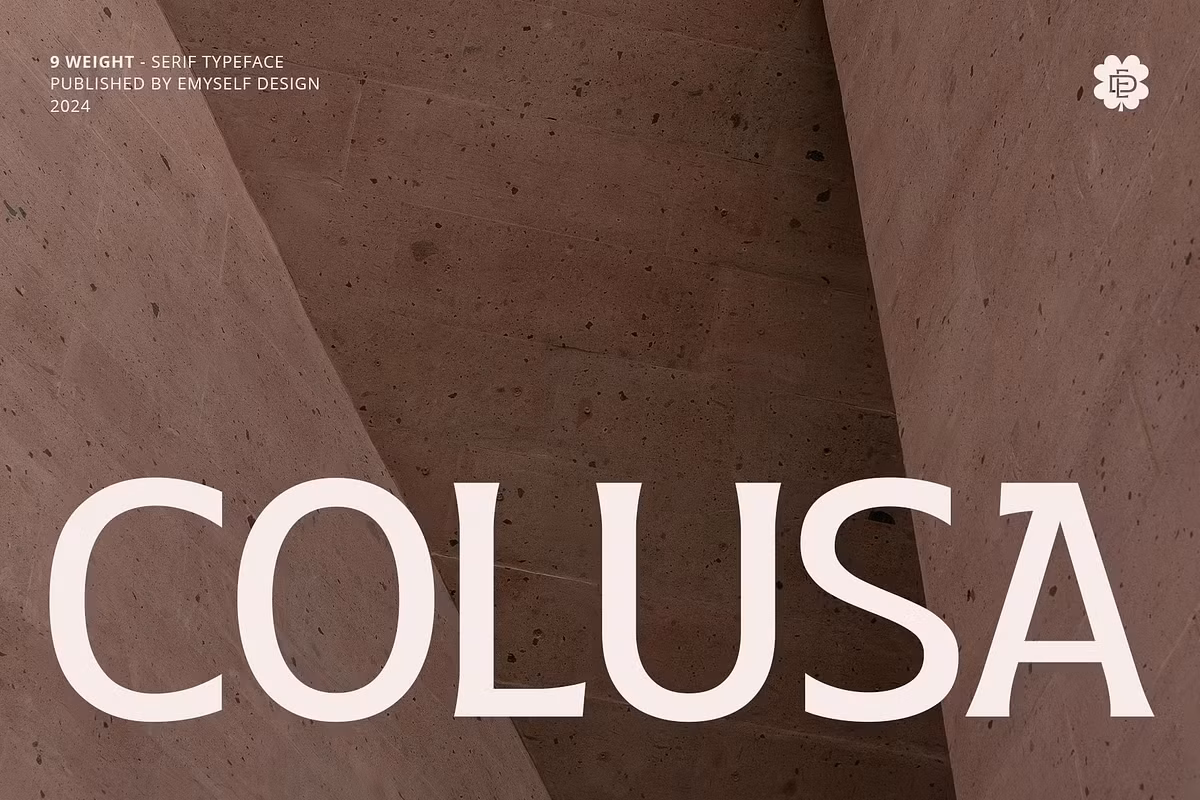
ED Colusa - Serif Font Free Download
ED Colusa – Serif Font Free Download
ED Colusa – Serif Font Free Download is a timeless, elegant serif typeface designed with modern sophistication in mind. Featuring high-contrast strokes, sharp serifs, and balanced proportions, this font is perfect for editorial designs, branding, logos, invitations, and professional digital or print projects.
With its classic charm and refined appearance, ED Colusa – Serif Font Free Download brings a sense of luxury and professionalism, making it an ideal choice for high-end fashion, corporate branding, and formal communication.